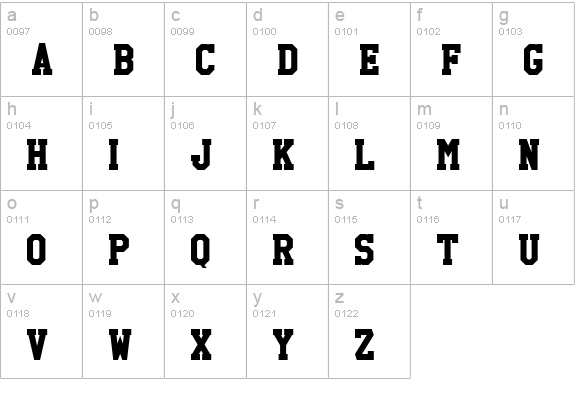
High School USA Serif font is a timeless and classic typeface that perfectly captures the essence of high school nostalgia. With its sophisticated and elegant letterforms, this font instantly transports you to the hallways and classrooms of a bygone era. It exudes a sense of tradition and refinement, making it the perfect choice for any project that requires a touch of elegance and sophistication. What sets High School USA Serif font apart is not just its stunning design, but also its accessibility. This font is available for free download at FontsMarket.com, making it easily accessible to anyone who wants to add a touch of vintage charm to their designs. Whether you're a graphic designer, a student working on a school project, or simply someone who appreciates the beauty of typography, this font is a must-have in your collection. With its clean lines, well-defined serifs, and perfect balance of thick and thin strokes, High School USA Serif font is incredibly versatile. It can be used for a wide range of design projects, including logos, branding, invitations, posters, and much more. Its timeless appeal ensures that it will never go out of style, making it a valuable asset for both professional designers and amateurs alike. When you download High School USA Serif font from FontsMarket.com, you're not just getting a beautiful typeface, but also a piece of design history. This font pays homage to the golden age of high school typography, evoking a sense of nostalgia and charm that is hard to find in contemporary fonts. Its versatility, accessibility, and timeless appeal make it a true gem in the world of typography. So why wait? Head over to FontsMarket.com and download High School USA Serif font for free today. Let it transport you back to the days of high school memories and add a touch of elegance and sophistication to your designs.